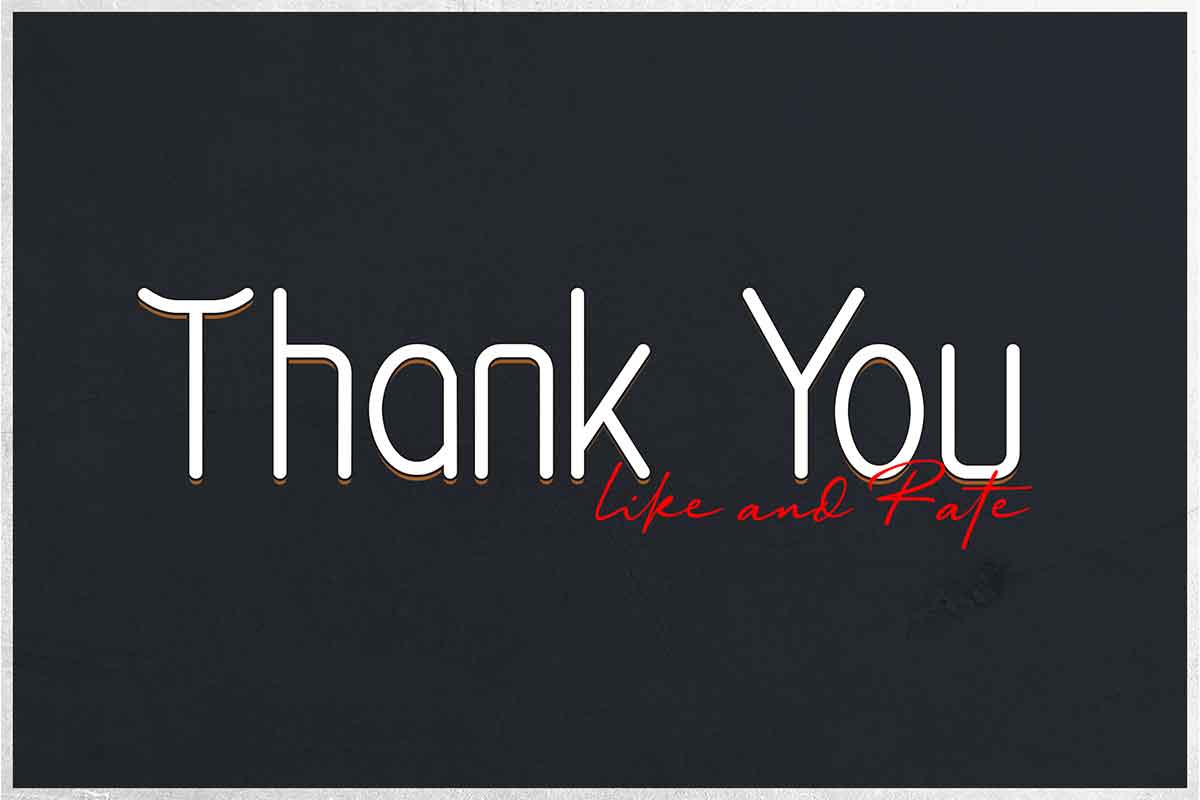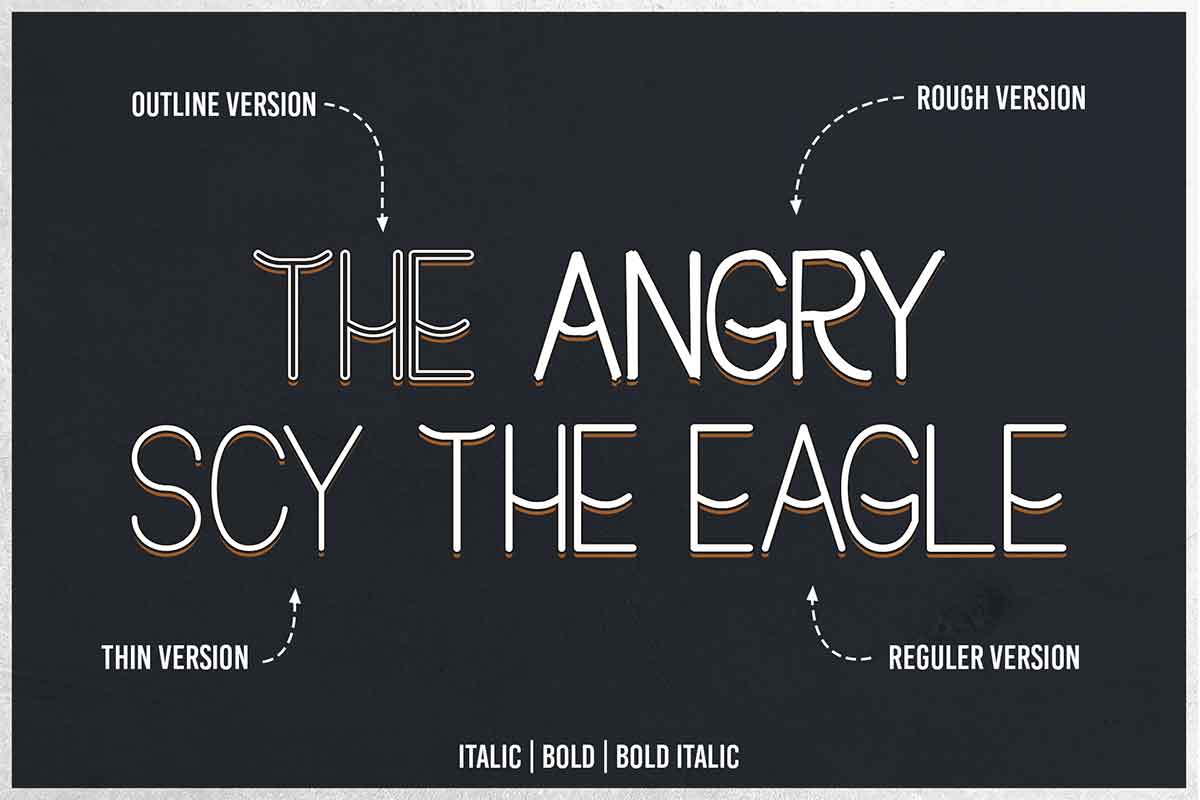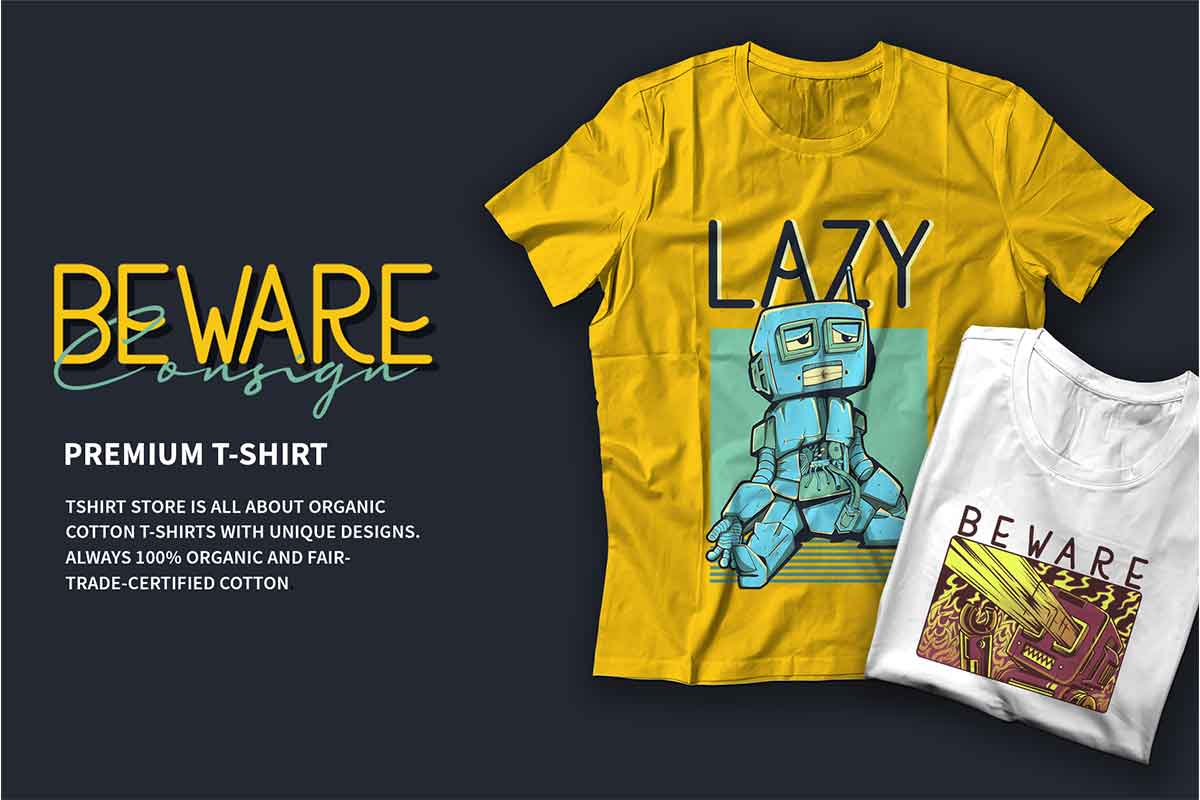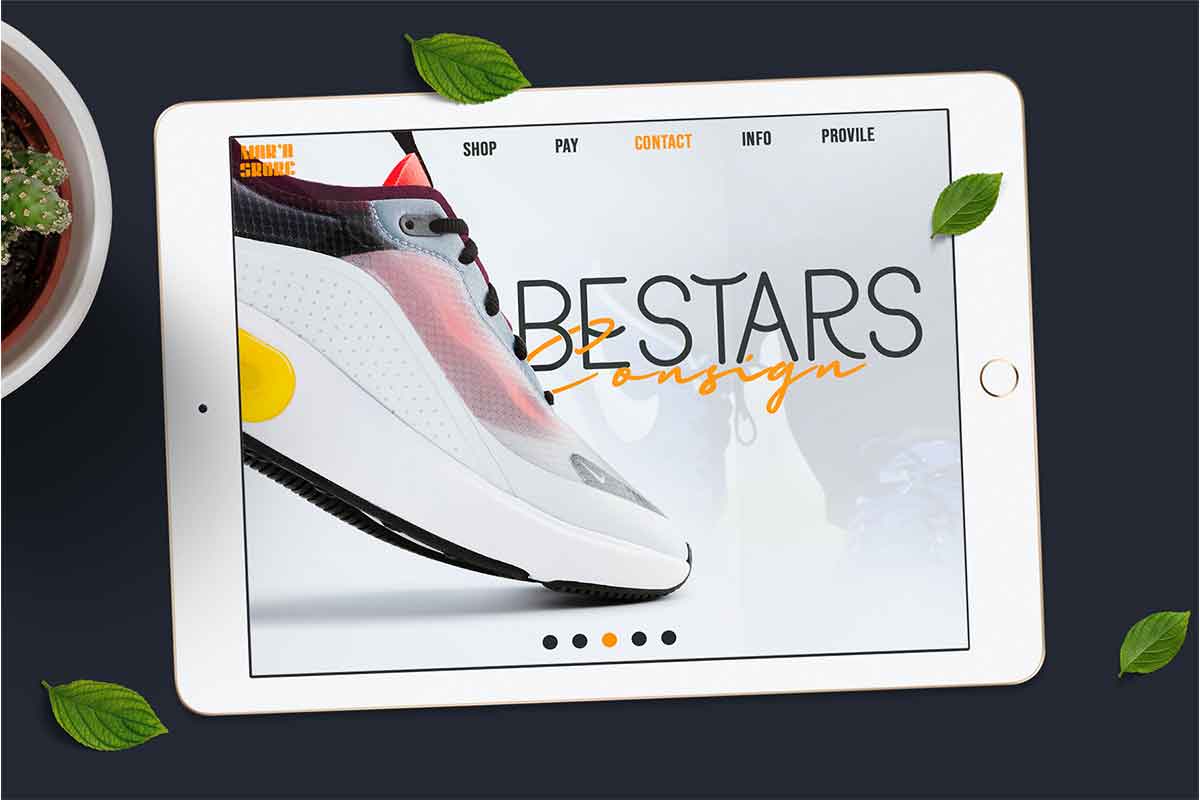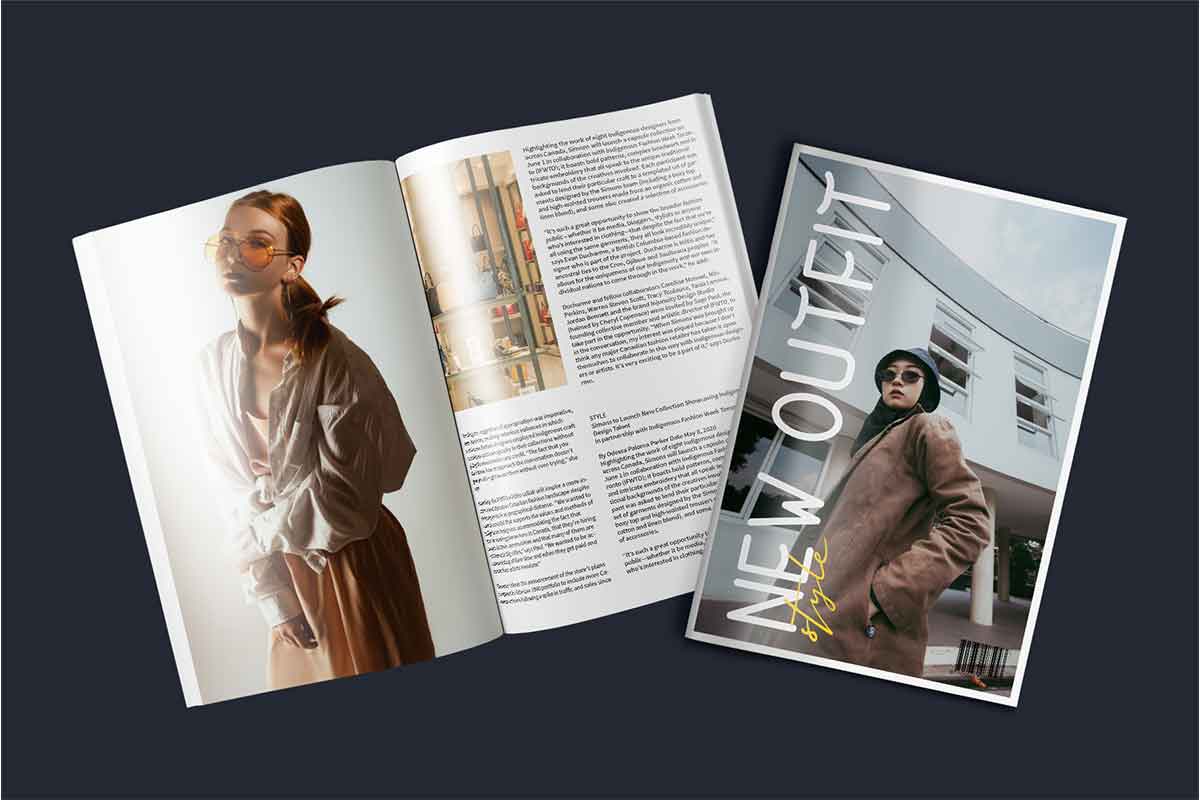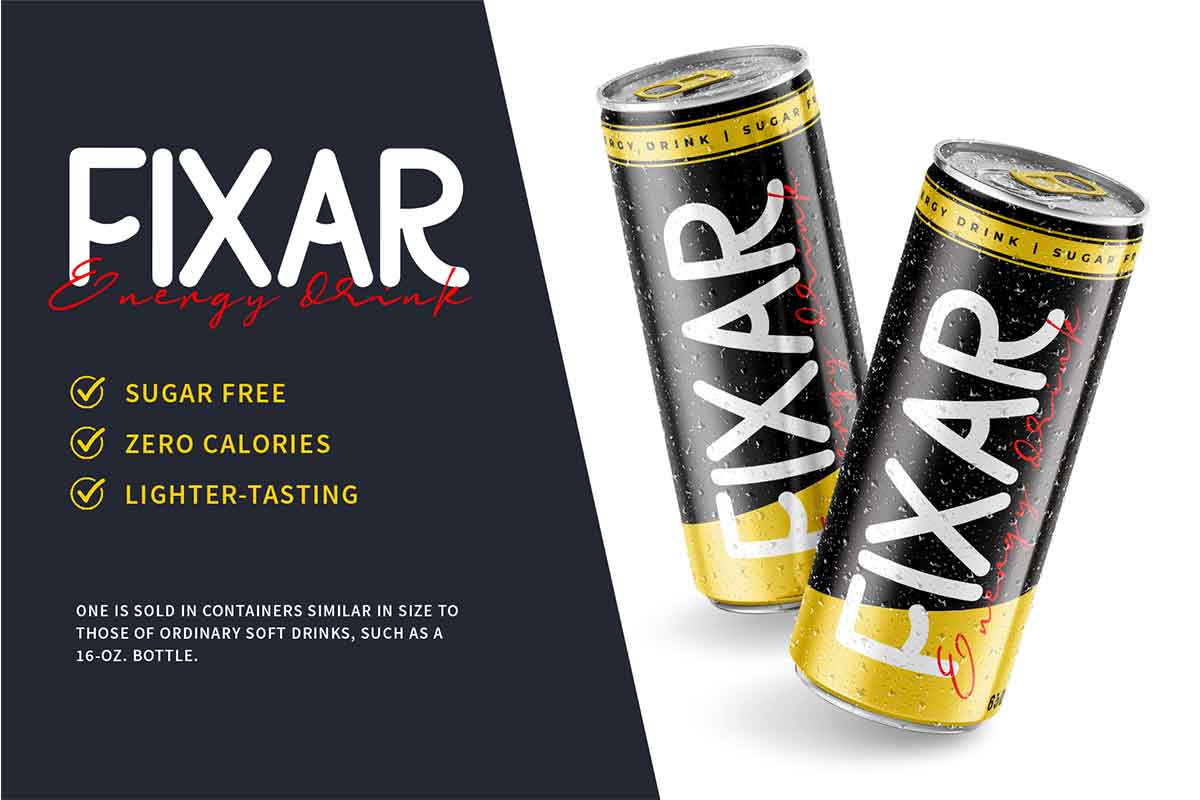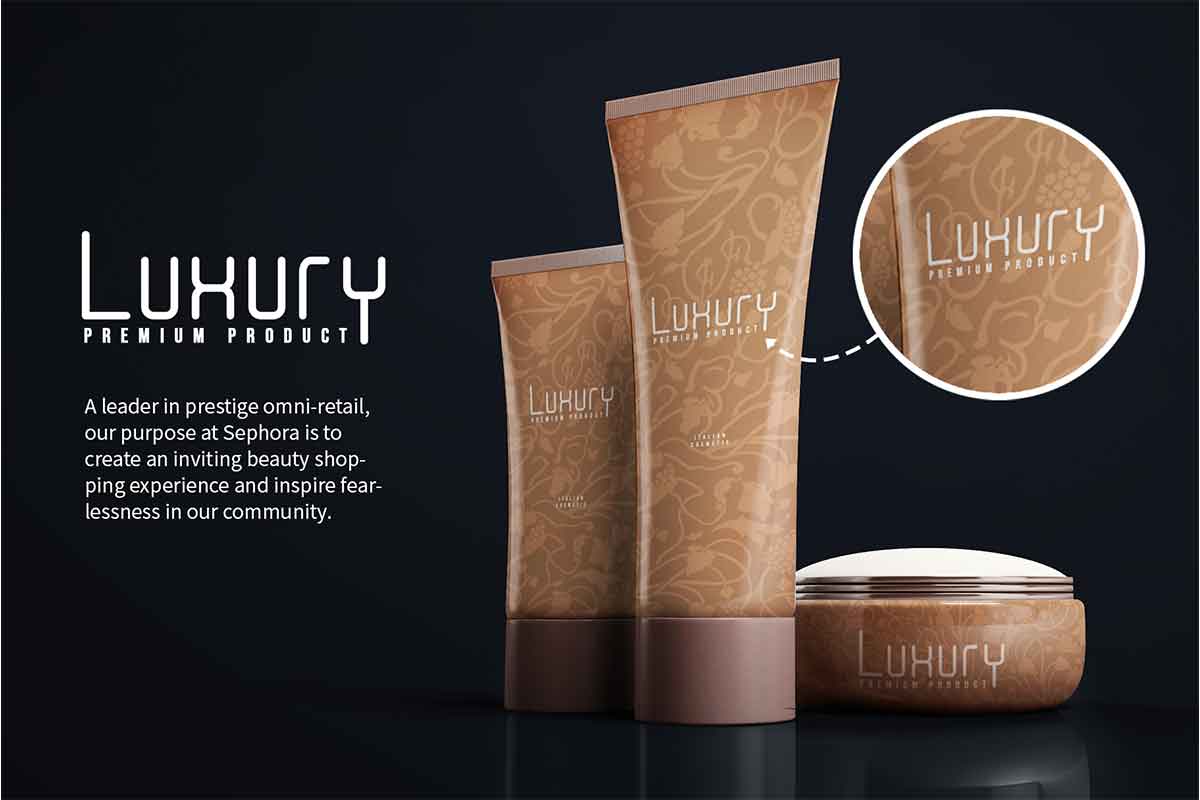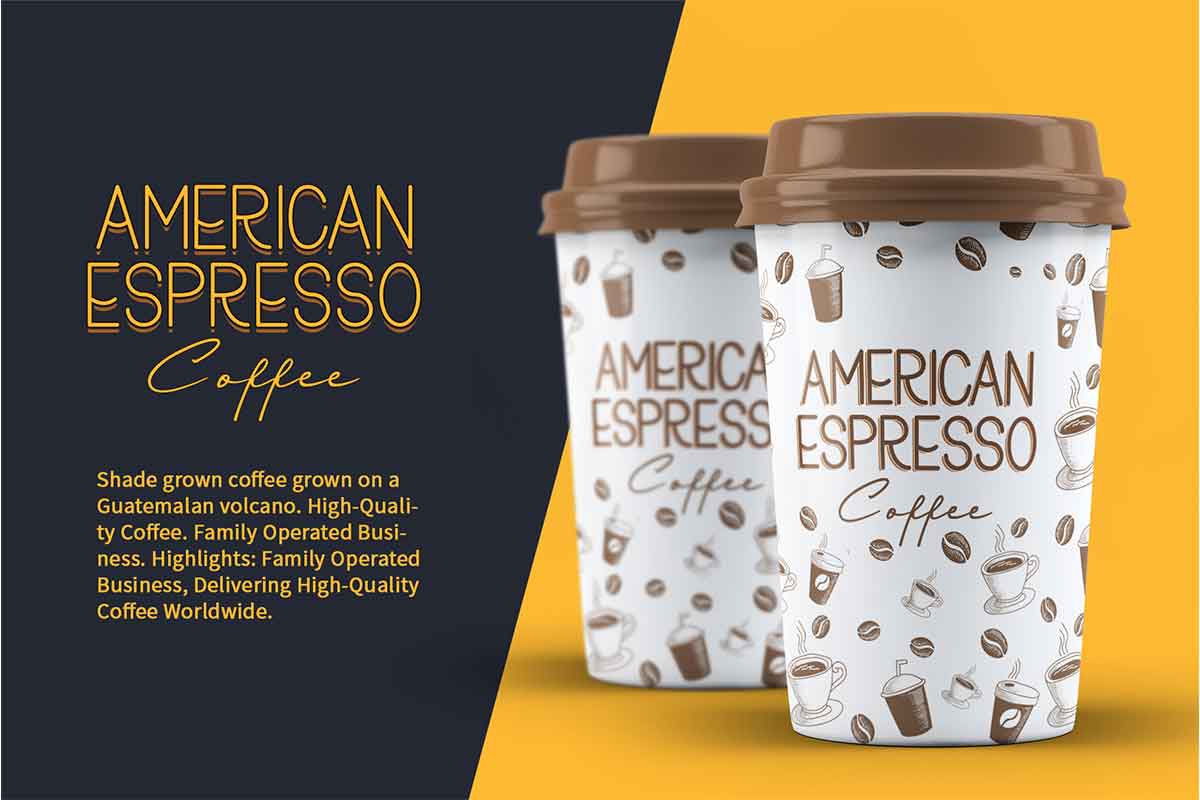
Buon Umore Font Buon Umore Display font is one of our Sans Serif fonts. If you want a sans-serif font that is readable and easy to work with, you should consider choosing the Buon Umore font for your project. Buon Umore Display font is a clean and simple font with a very minimalistic style. This font is a modern, bold font. You can use this font as a digital and print font, such as for magazines, posters, and flyers. You can also use Buon Umore Display font for branding purposes, such as creating logos or taglines for brands, brand packaging, and brand advertising. Some examples of products include; clothing, food and beverages, and beauty products. Make sure the font size must be considered in its application. Buon Umore Display font gives off a simple yet elegant impression when you look at it. No doubt this font is suitable for various social media platforms. Our Sans Serif font collection is compatible to use as Figma fonts, Canva fonts, Freepik Fonts, and Adobe Fonts. They also work as Windows Fonts, and Apple Fonts. For your social media needs, you can use and install fonts in our Sans Serif font collection to use as Instagram Fonts, Facebook Fonts, and Twitter Fonts.